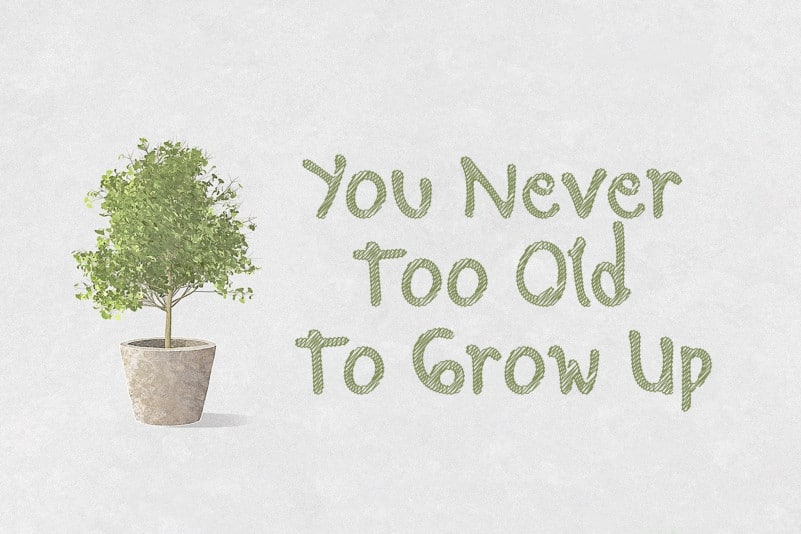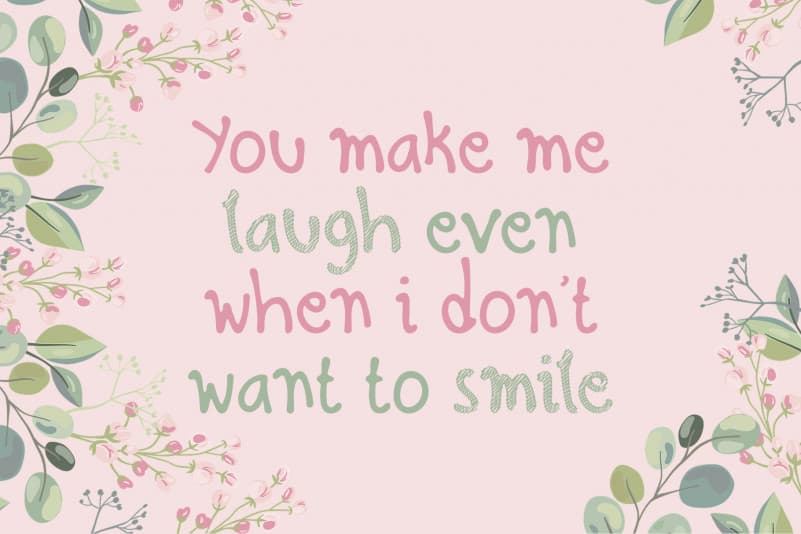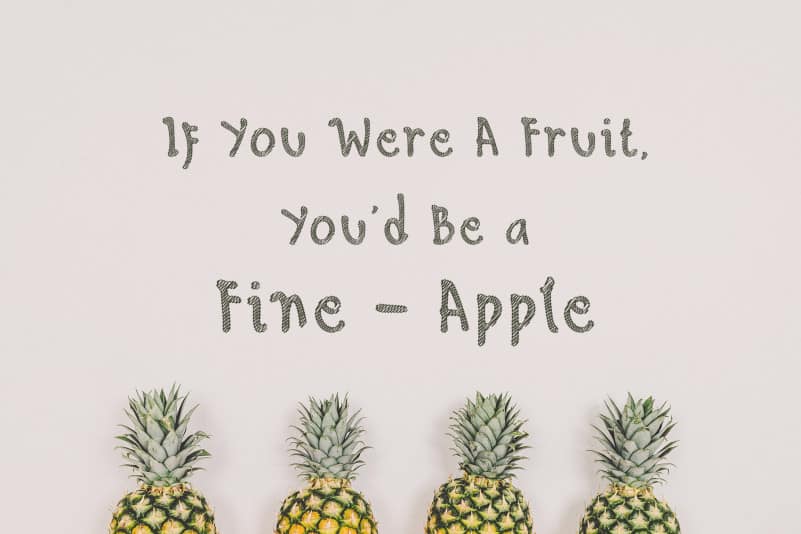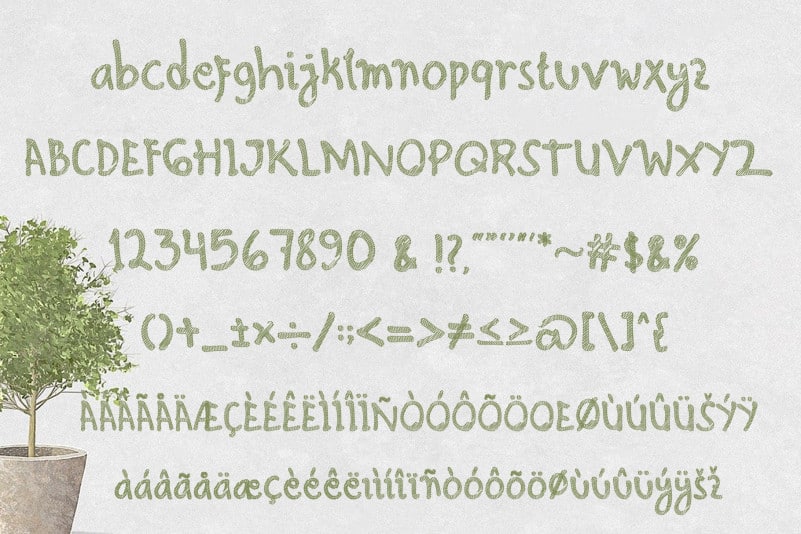
Hello Scribbles – Handwritten font
Hello Scribbles Font is a handwritten unique scribbles font, perfect for design, letter, cartoon, birthday, paper craft  and book.